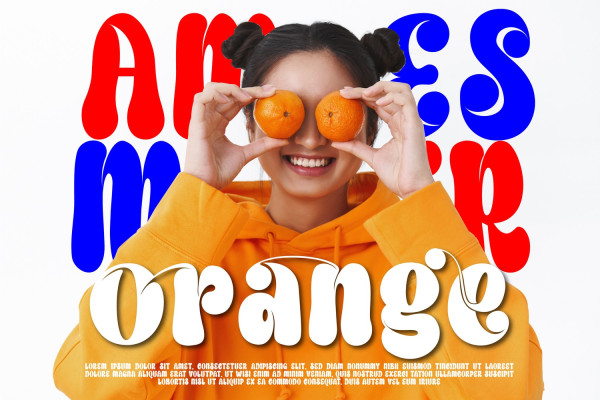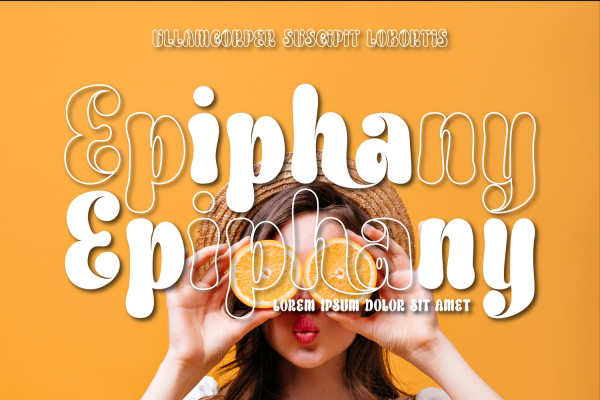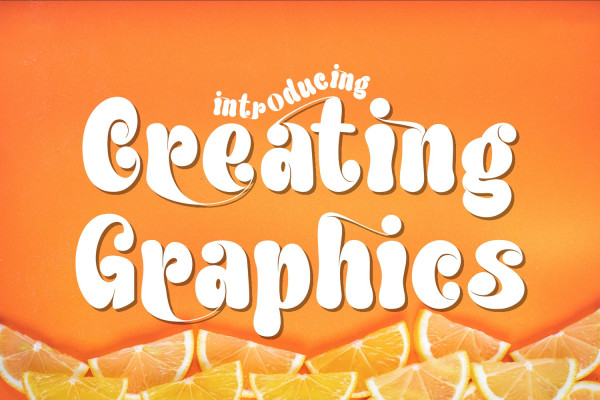
Creating Graphics Font
Creating Graphics Font is a cute, groovy, and display font, it’s a psychedelic and funky blend with a bubbly touch, it’s a hand-drawn font with big groovy letters! This font will make any creative idea stand out and stunning! Suitable for designing T-shirts, tote bags, hats, stickers, wedding invitations, logos, cards, quotes, and more!
Creating Graphics was built with OpenType features and includes 100 ligatures, alternate, numbers, punctuation, and it also supports other languages.